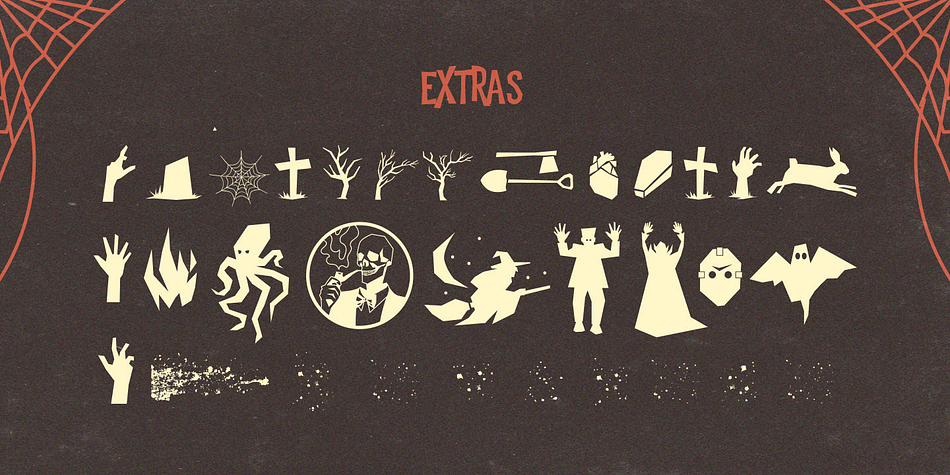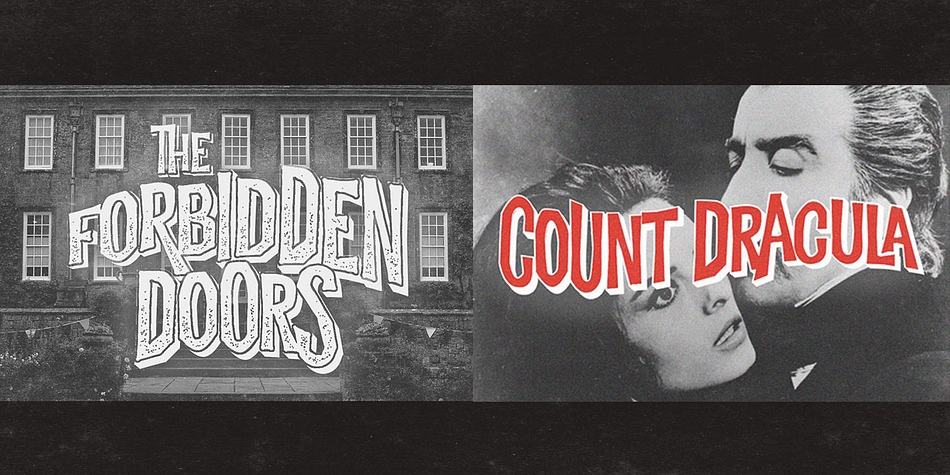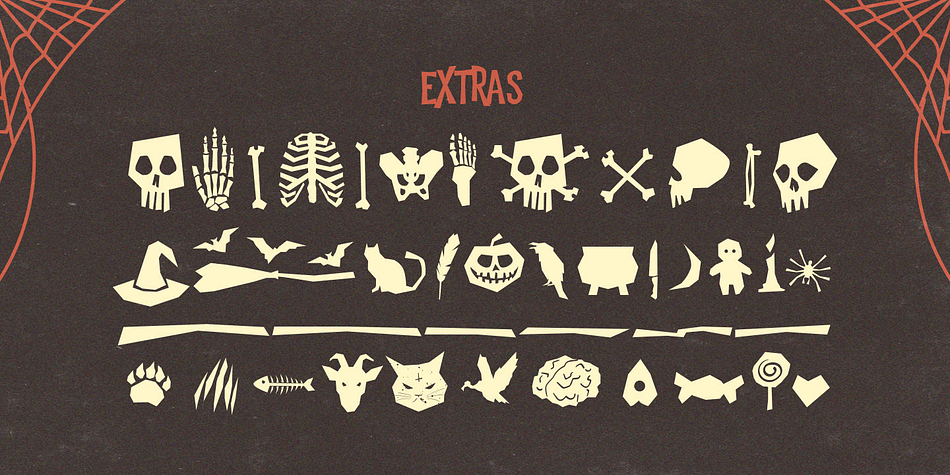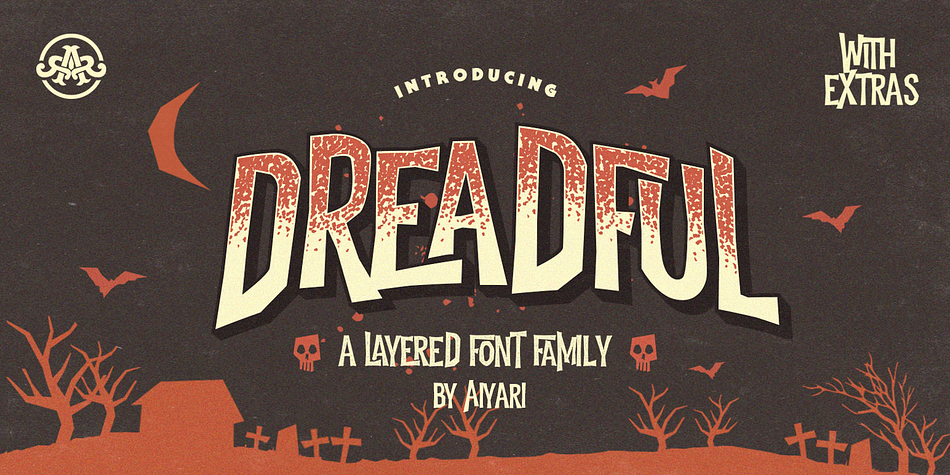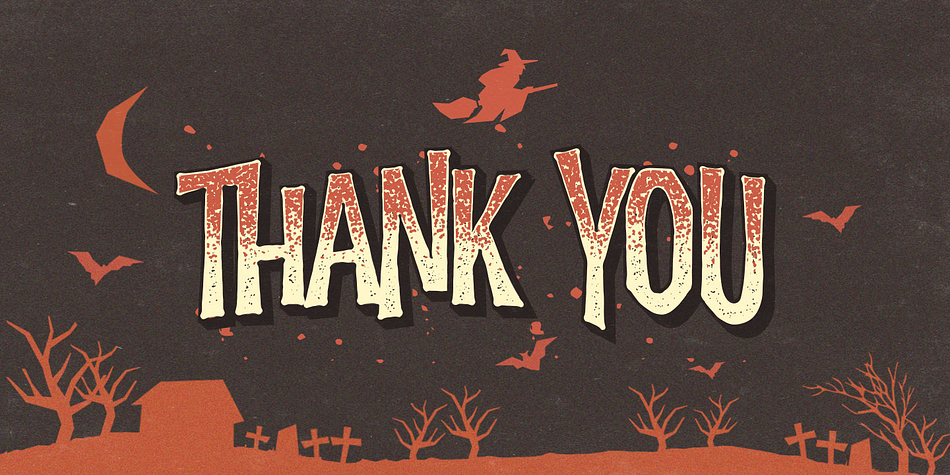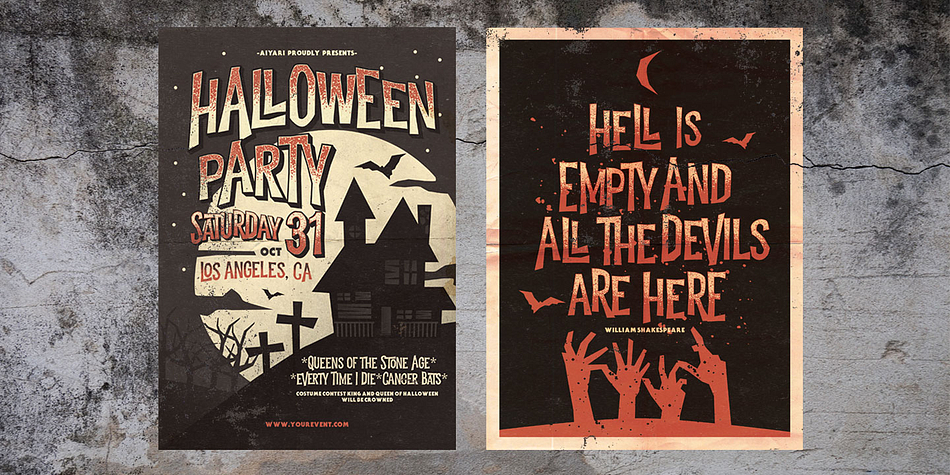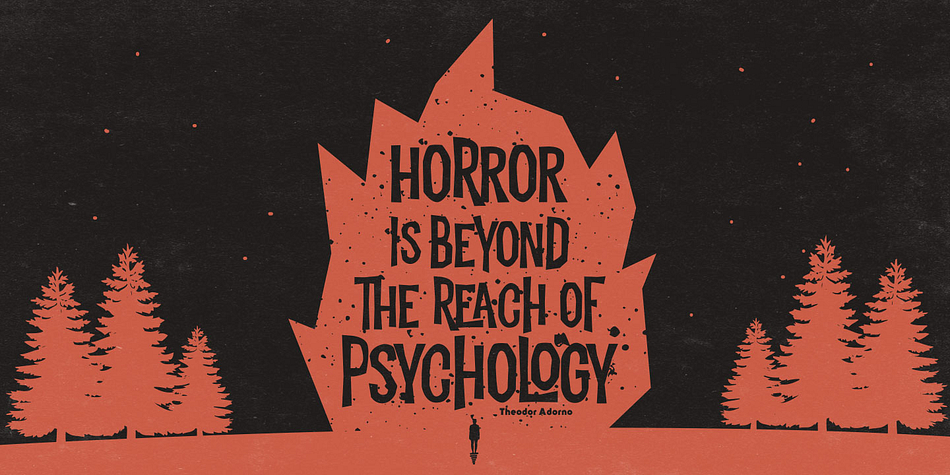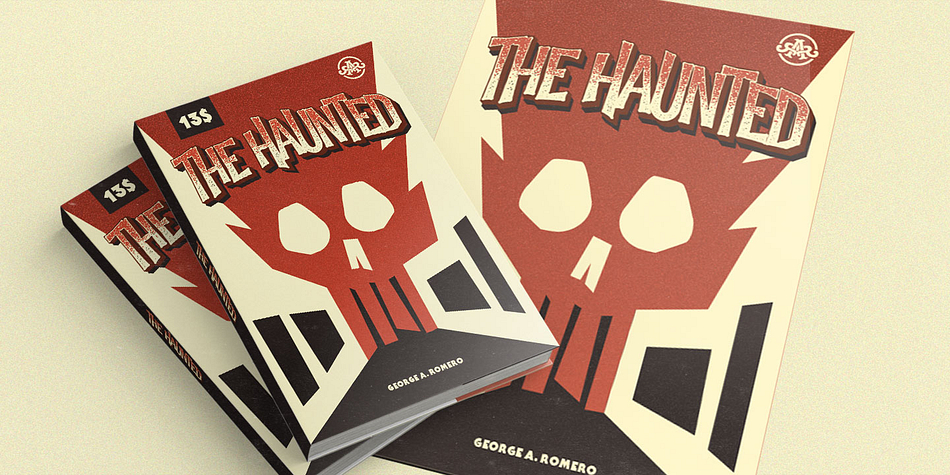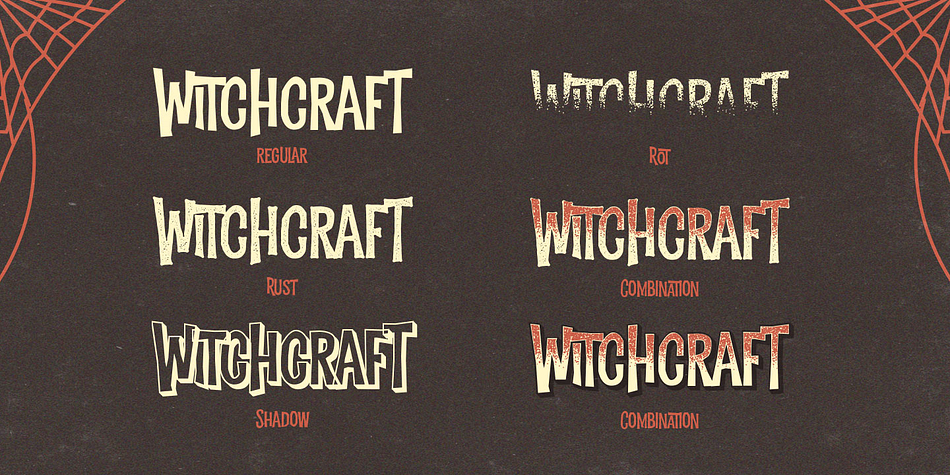
Dreadful is a dingbat and hand display font family. This typeface has five styles and was published by Aiyari.
Introducing a new layered typeface called Dreadful.Inspired from the classic horror movie and vintage comic. Dreadful Typeface best uses for headings, Logo type, quotes, apparel design, invitations, flyer, poster, greeting cards, product packaging, book cover, printed quotes, album covers, movie, etc.